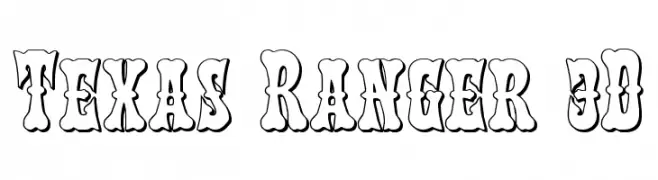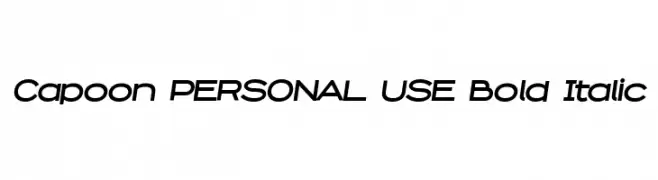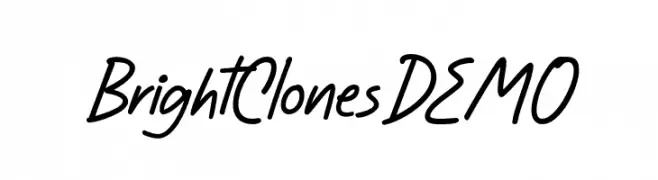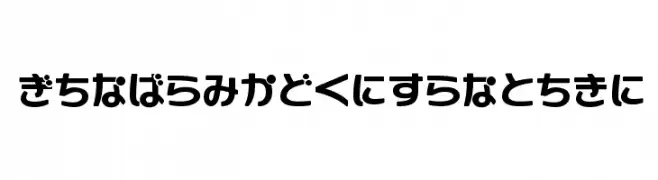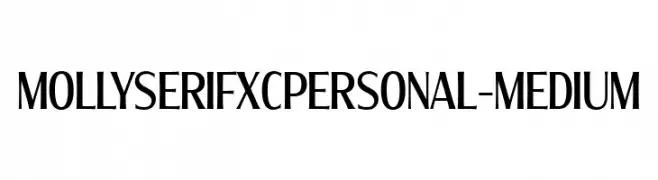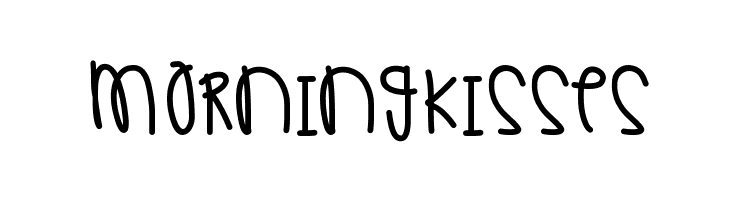
A lively and expressive handwritten font with fluid strokes.
A playful, decorative font with bold letters featuring circular cutouts.
A bold, 3D Western-style font with a rugged, adventurous look.
A modern, geometric font with consistent stroke width and elegant simplicity.
An artistic inline font with a flowing script-like style and structured form.
A bold italic font with a modern, dynamic style and consistent stroke width.
A bold, angular font with a modern, geometric style.
A casual handwritten font with smooth, flowing strokes and medium thickness.
Bold, rounded font with a playful and modern style.
A sophisticated serif font with elegant, elongated strokes and a slightly condensed appearance.